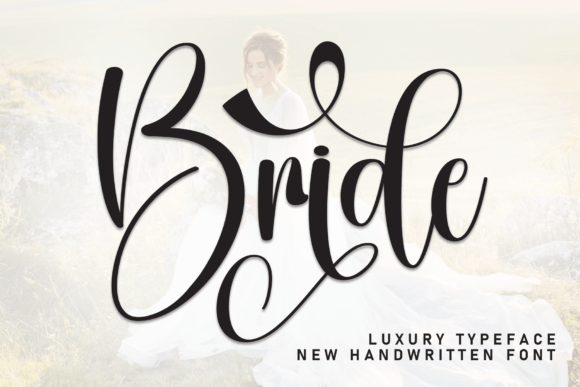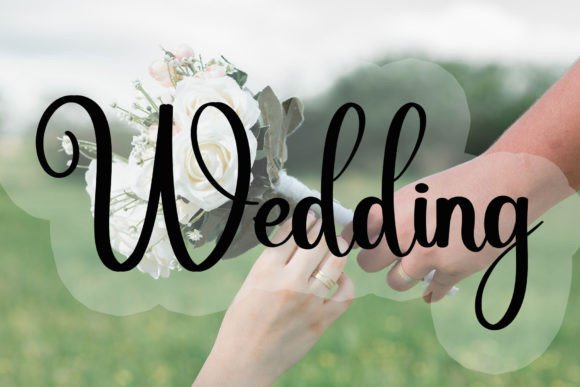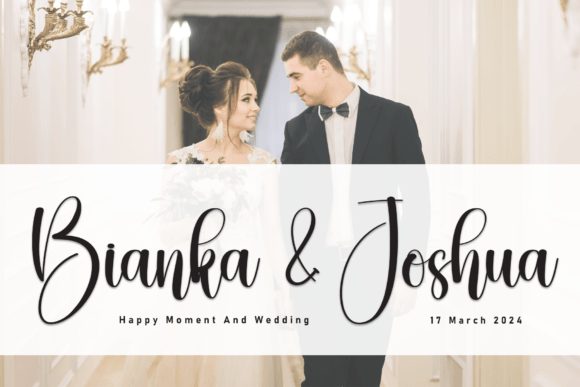
Bride Font
Bride is a trendy handwritten font with a contemporary atmosphere and impeccable form, inspired by timeless classic calligraphy. It will add elegance and class to any of your design projects. This font can be used to write various kinds of products according to the aspect of each need.